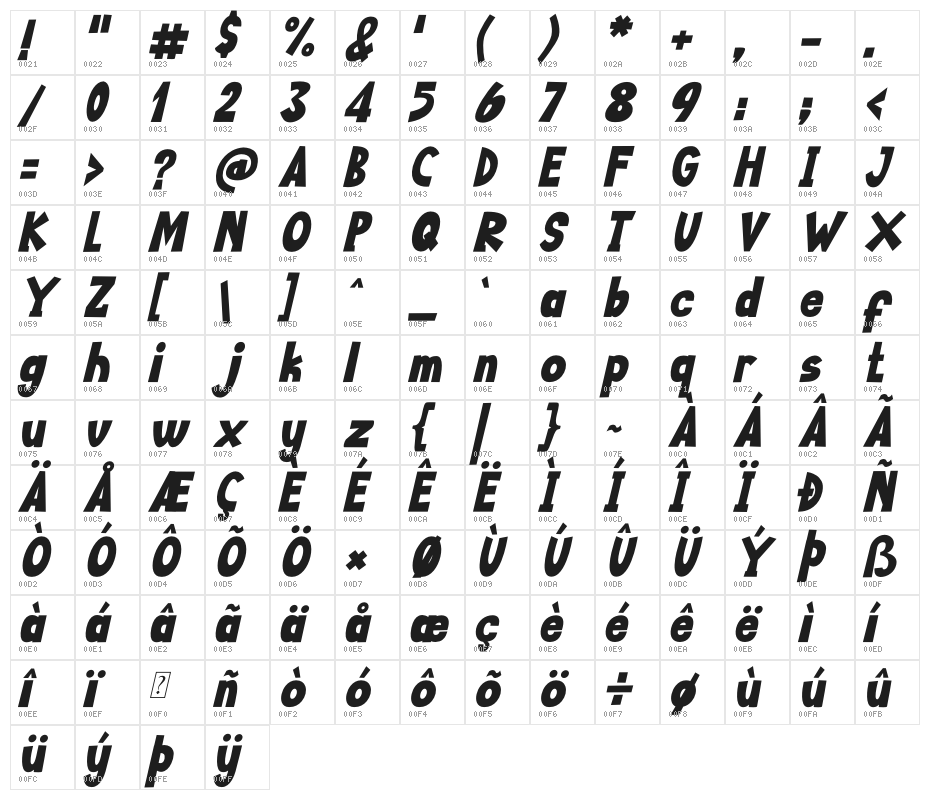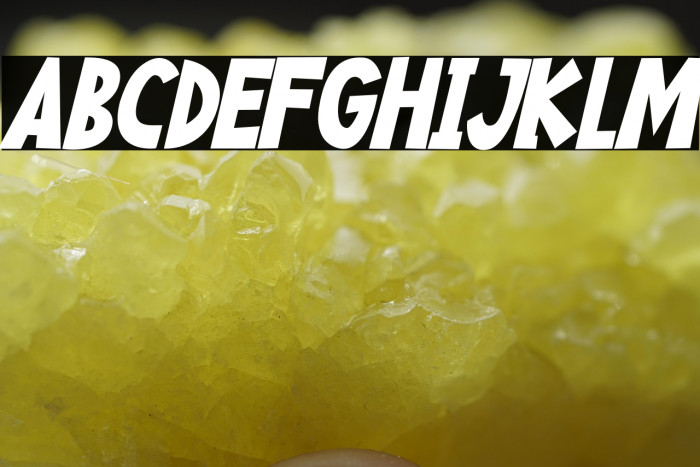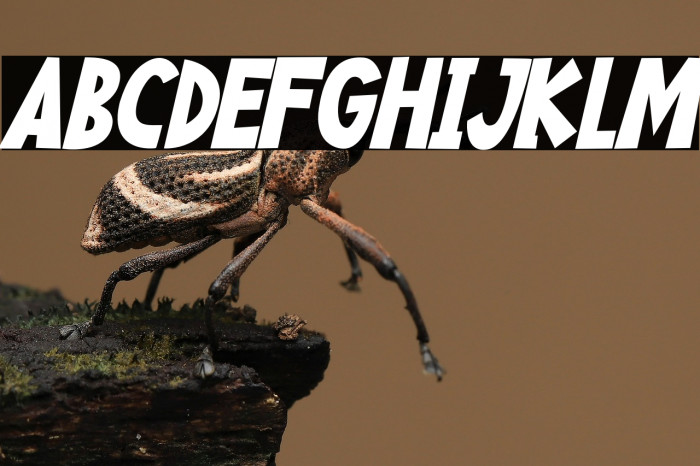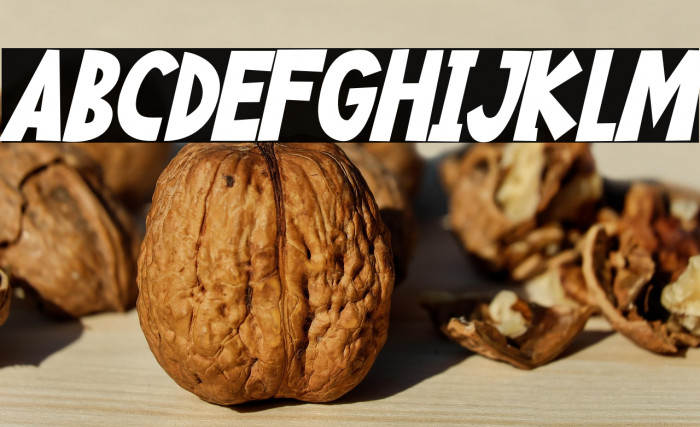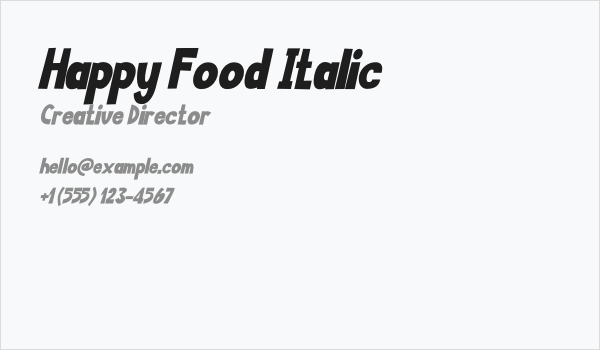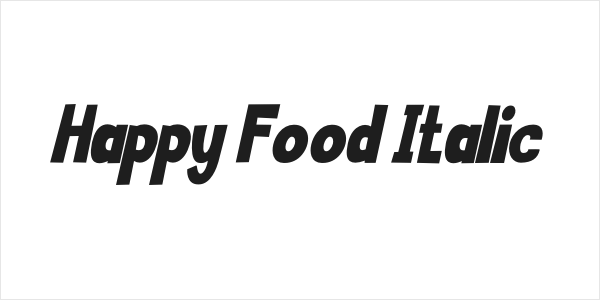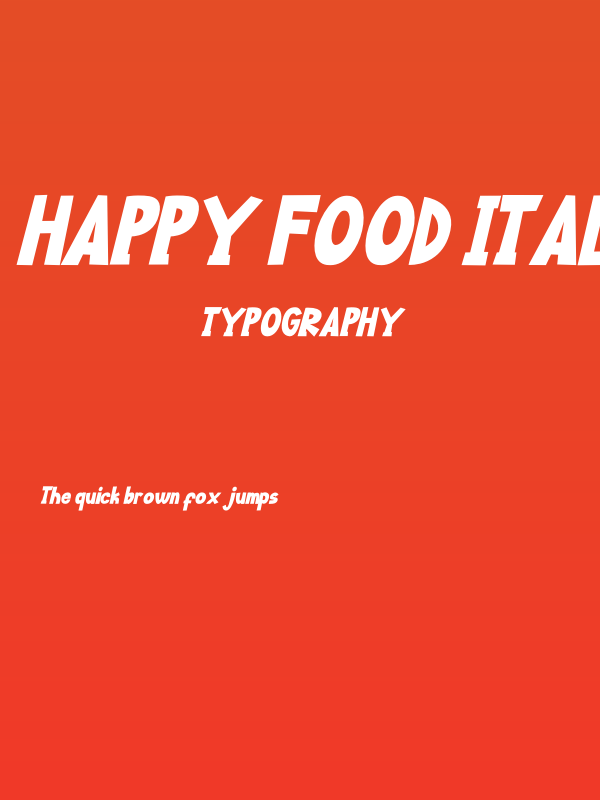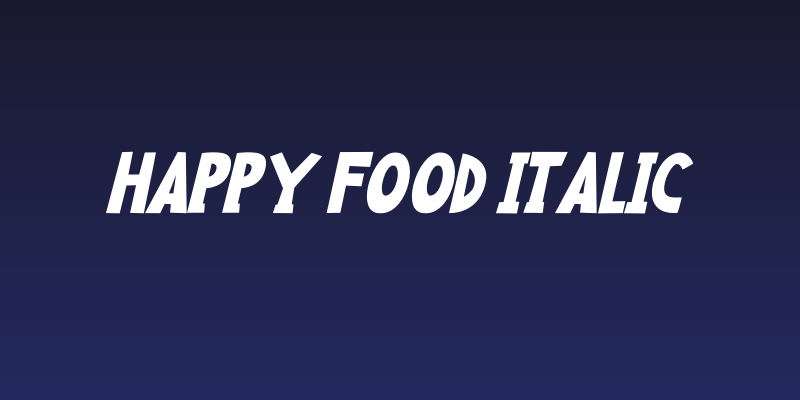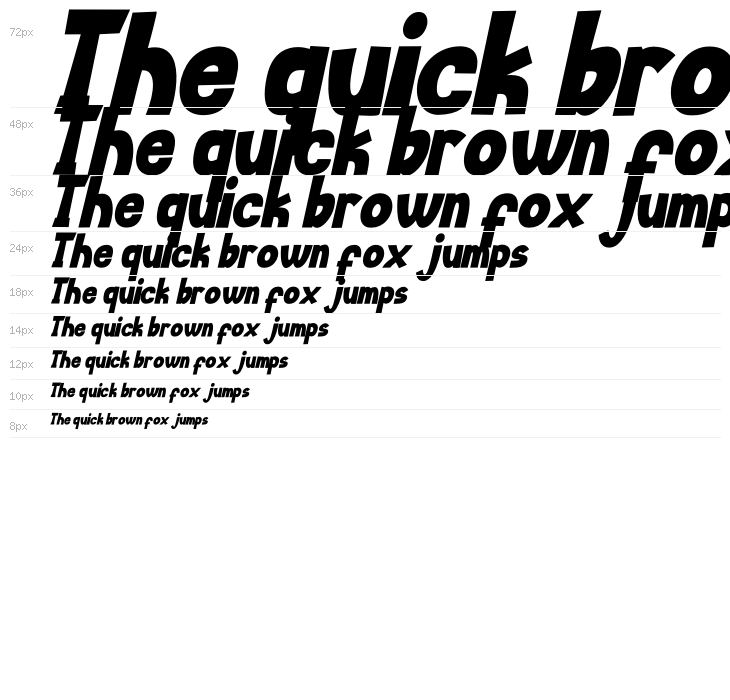
Happy Food Italic Font
Happy Food Italic Description
This font features a playful and bold style with a distinct italic slant, giving it a dynamic and energetic appearance. The characters are thick and robust, with a slight forward tilt that adds a sense of movement and excitement. The uppercase and lowercase letters maintain a consistent weight, ensuring readability while retaining a whimsical charm. The numbers and special characters follow the same bold and slanted design, making them stand out effectively. The overall look is cohesive and lively, suitable for projects that require a fun and engaging typeface.
| Proposed Projects | Ideal for children's books, playful branding, event posters, and creative packaging. |